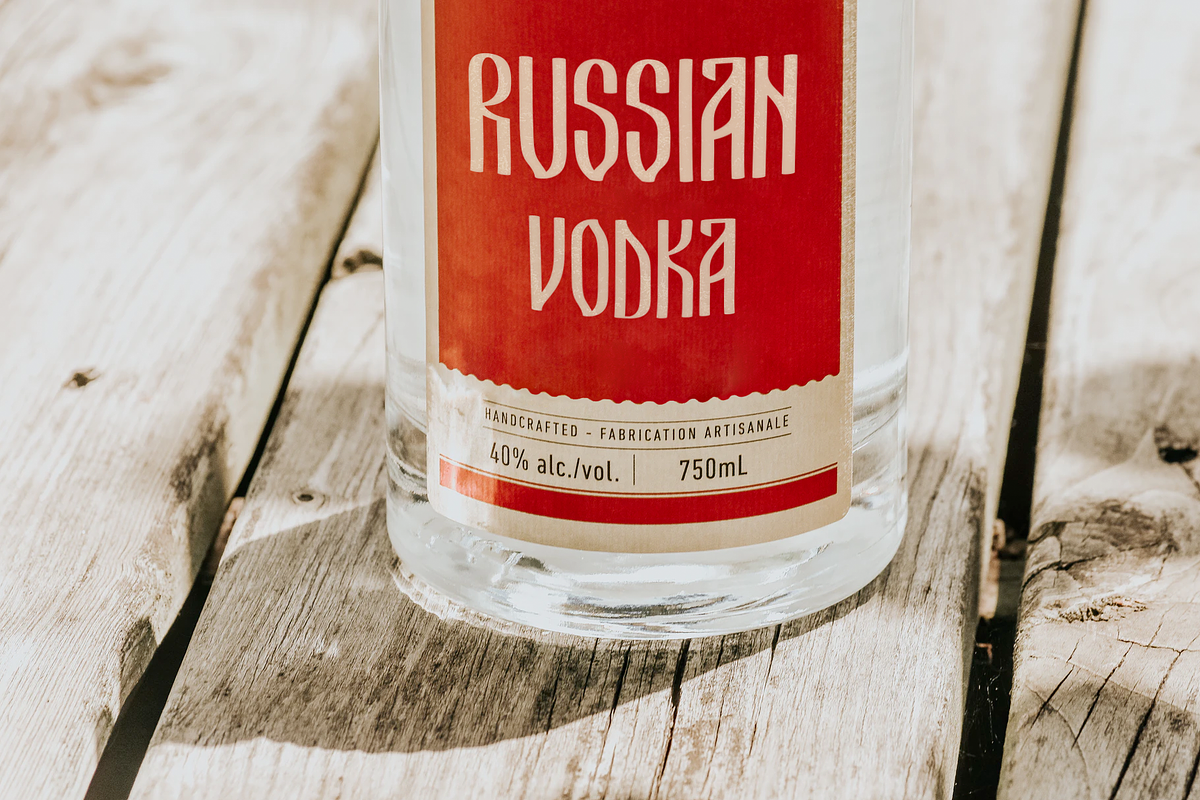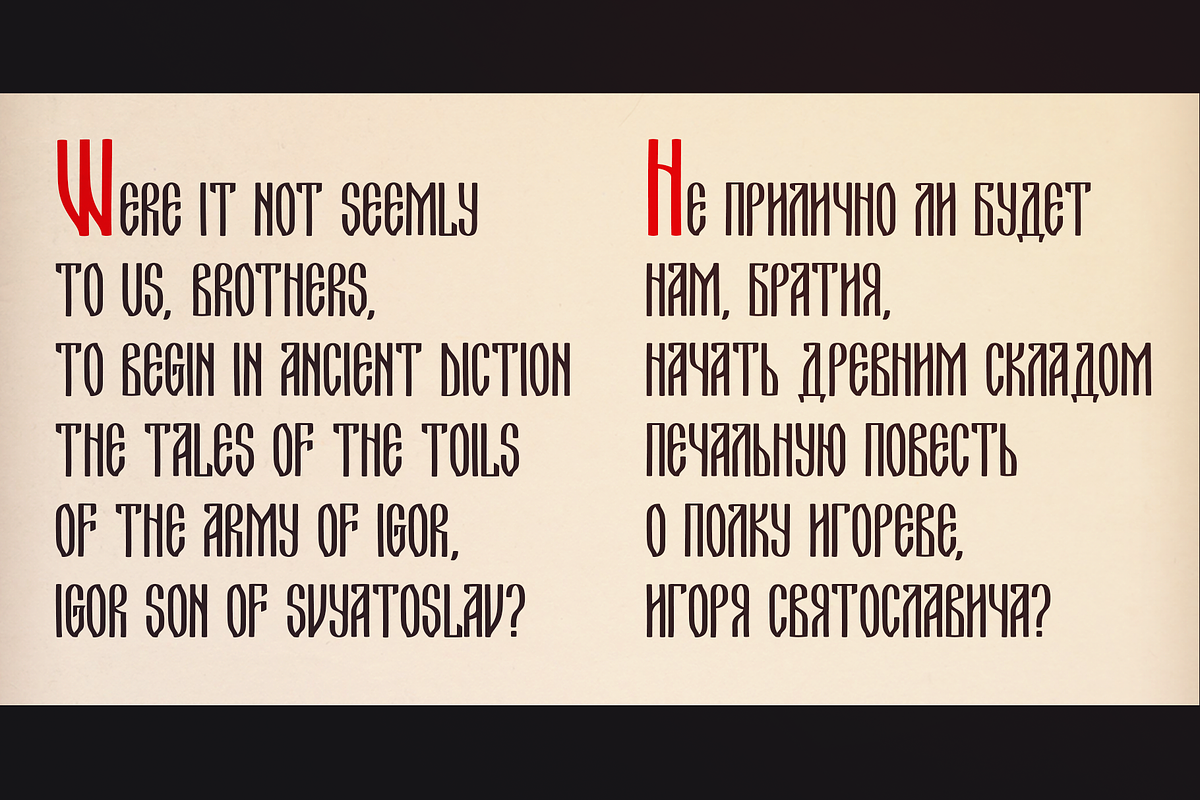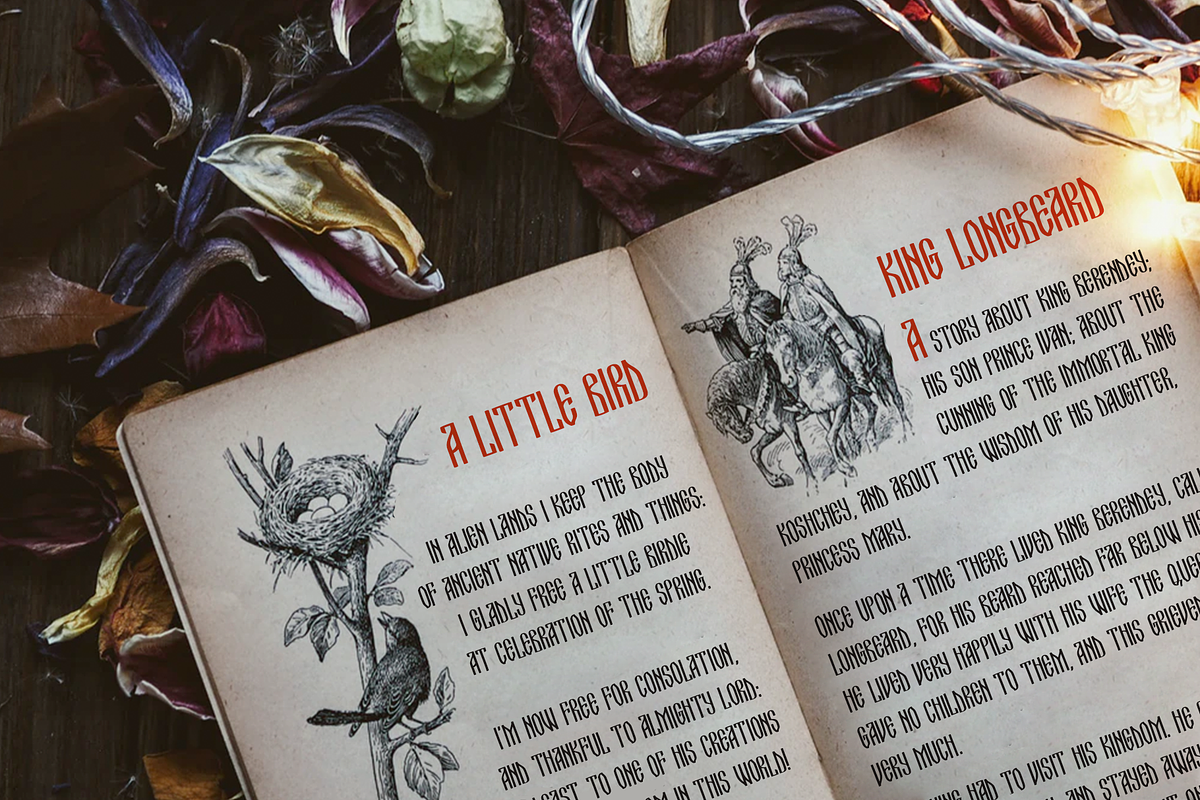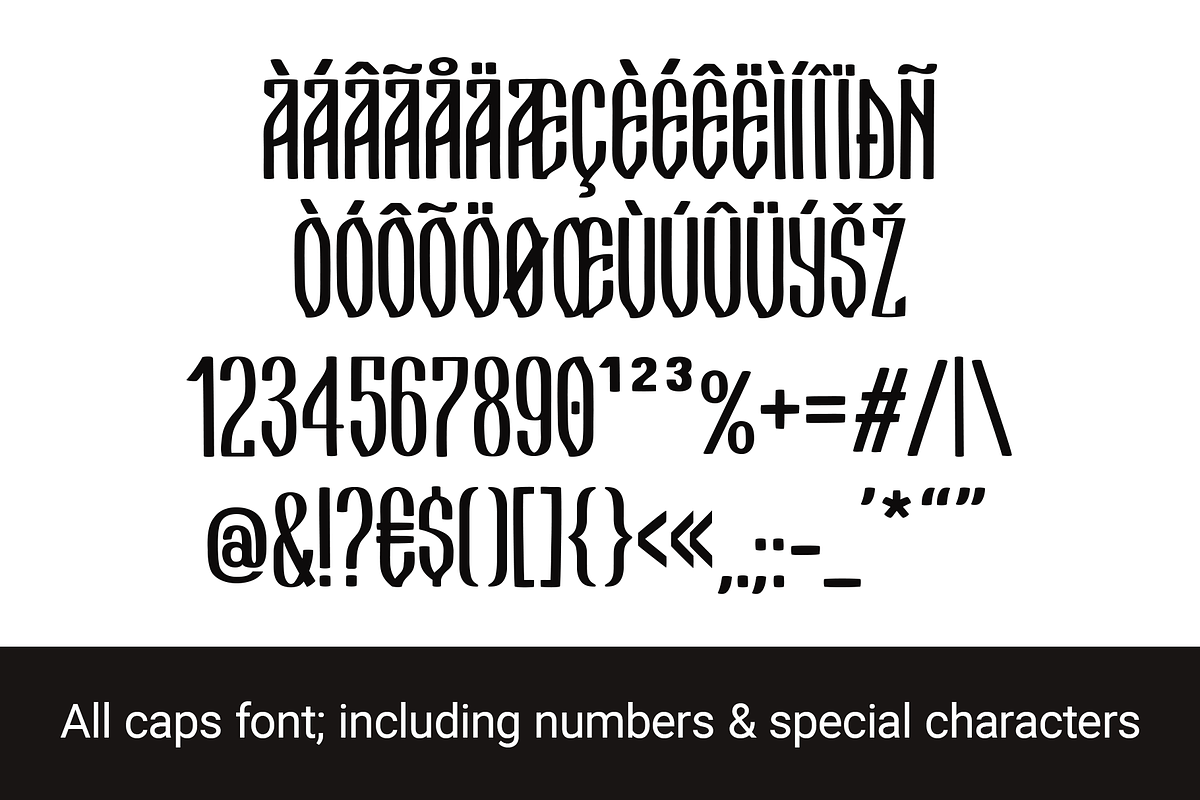
KIRILLIK Script Font
Kirillik is a hand-drawn font, based on early Russian cyrillic script (“Ustav”), elegant calligraphy written with flat ink brush. This is an all caps font (letters are the same in lowercase and uppercase) that includes Latin and Cyrillic alphabet with extra characters (covering most European languages), numerals, punctuation and symbols.